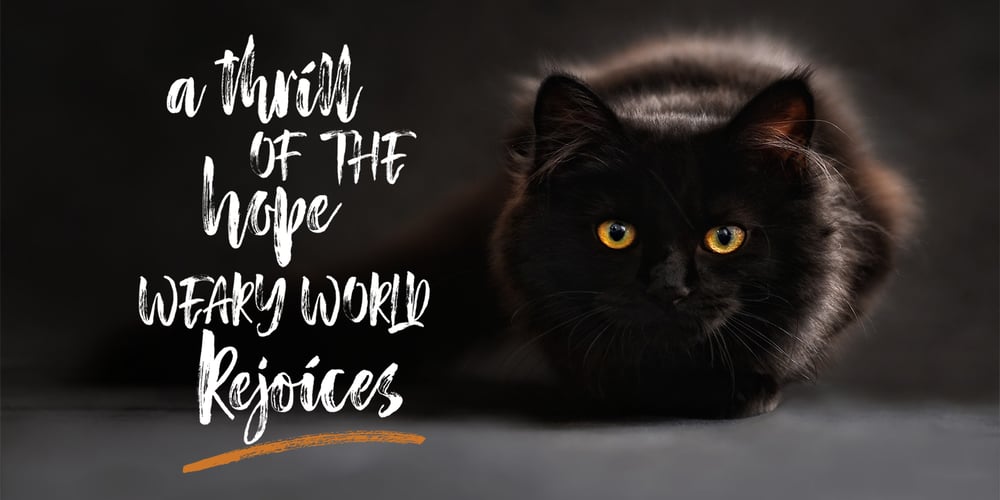
Red Blues Script
Red Blues Script font
Red Blues Script Font Family was designed by Muhammad Fajar and published by Lucky Type. Red Blues Script contains 2 styles and family package options. Red Blues is a new modern brush font with an irregular baseline. A contemporary approach to design, handmade natural, suitable for use in title design such as clothing, invitations, book titles, stationery designs, quotes, branding, logos, greeting cards, T-shirts, packaging designs, posters, and more. Complete with uppercase and lowercase letters, as well as multi-language support, numbers, punctuation. Red Blues also provide some ligatures and swash. Fonts Included : Multilingual Support Stylistic Alternate Standar Ligature Thanks so much for looking and please let me know if you have any questions.